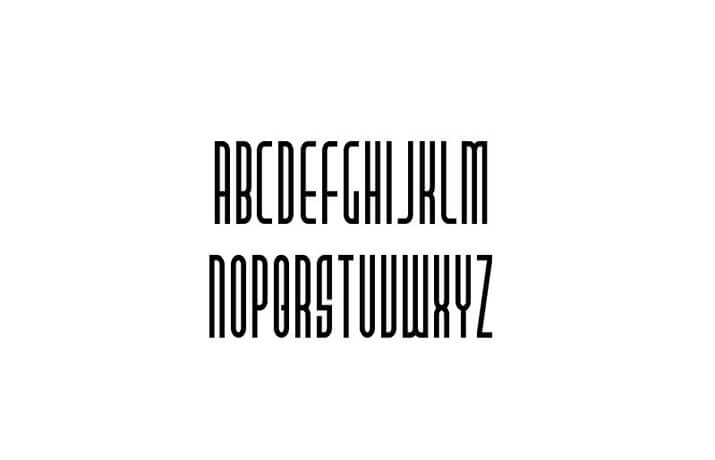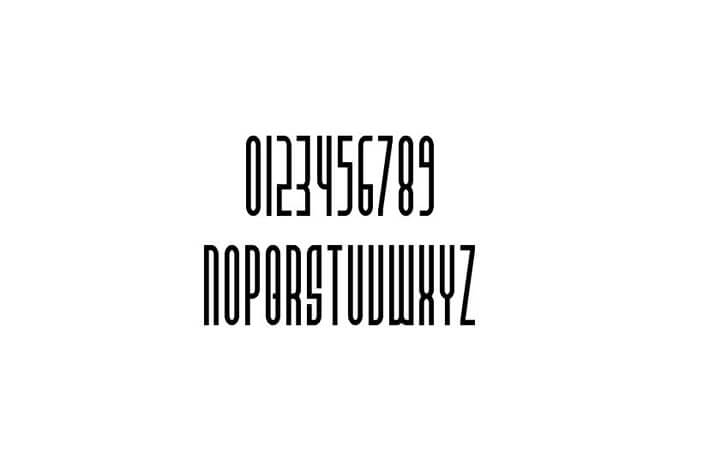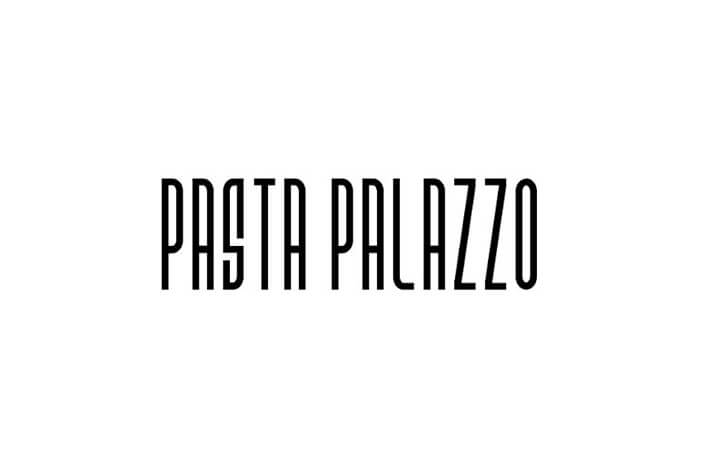
Pasta Palazzo Font may not be the thinnest sans-serif font featured here, but it makes up for that with pure elegance. It offers uppercase characters, numbers, and symbols.
Principal designer Mike Brando hails from Chicago. He was born there in 1990. He designed or produced the condensed Art Deco typeface Pasta Palazzo.
| Font Name: | Pasta Palazzo Font Family |
| Style: | Retro, Display, Fancy |
| Font Designer: | Mike Brando |
This incredible and stunning font is also perfect for many purposes such as food brochures, flyers, unique covers, quotes, wedding/invitation cards, delicate banners, business card designs, and game tilting.
This display font comes in a single variant that has come with 64 defined characters and also supports 63 glyphs.